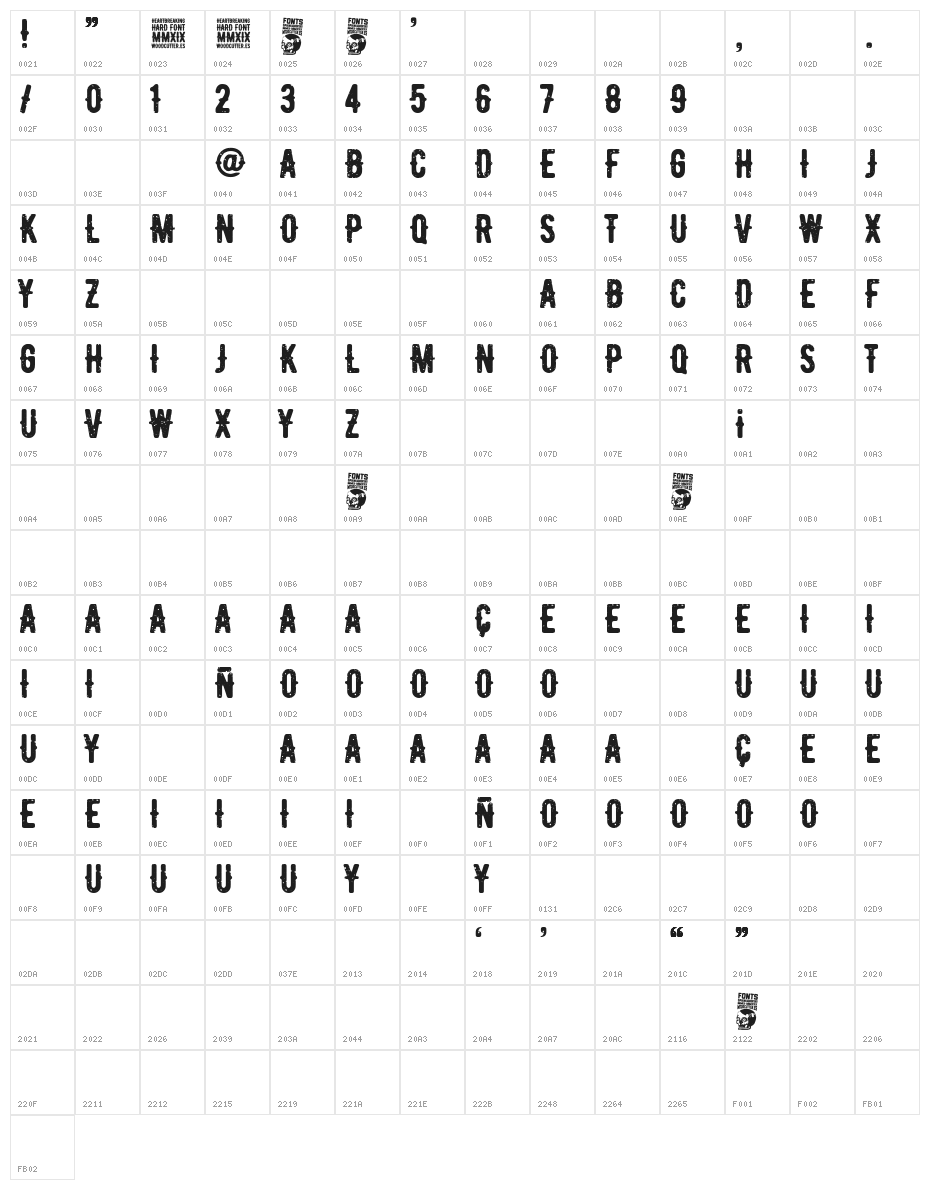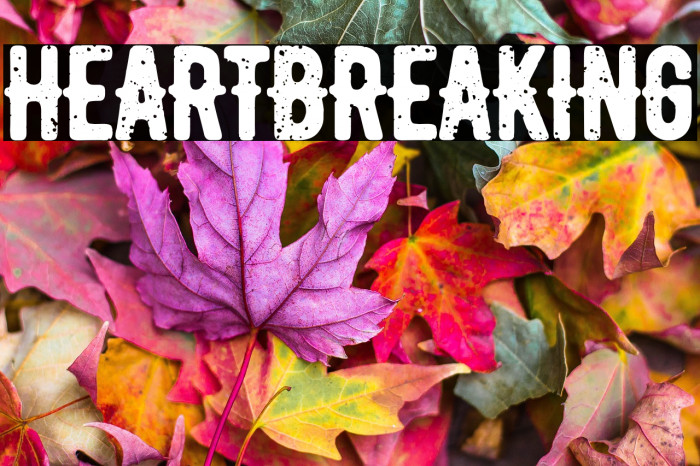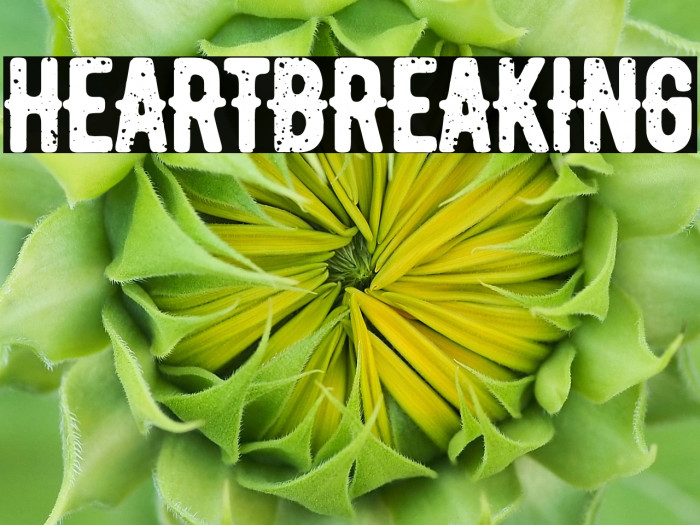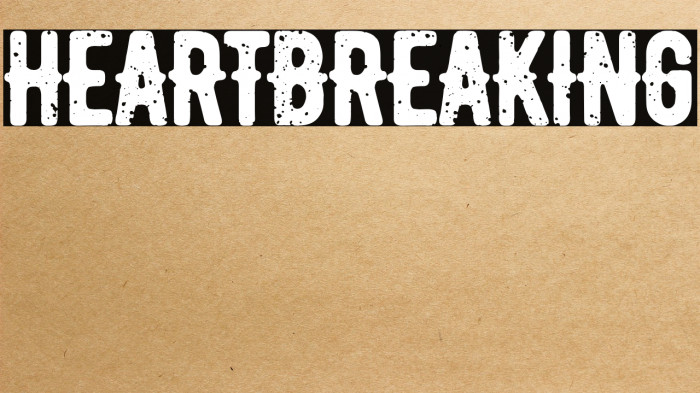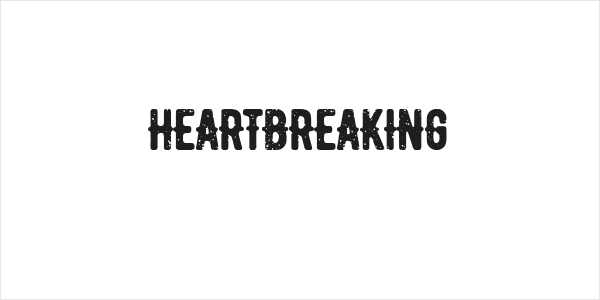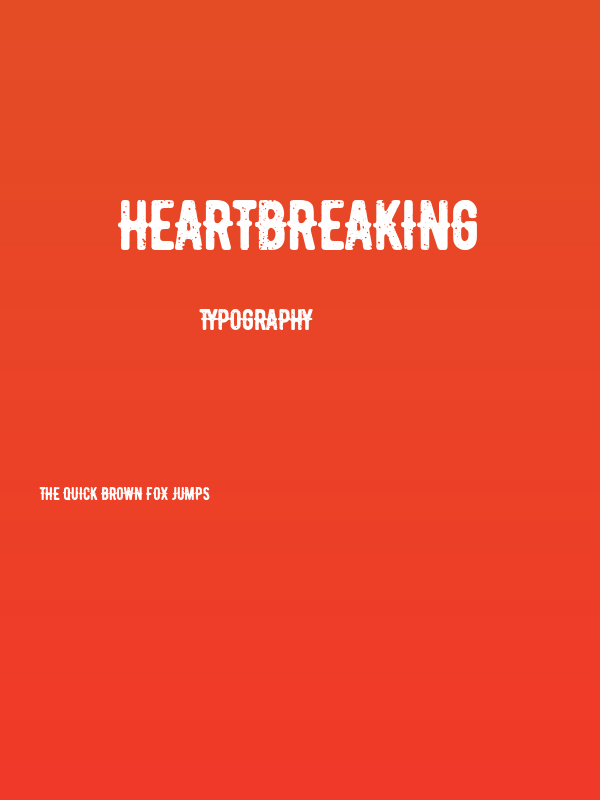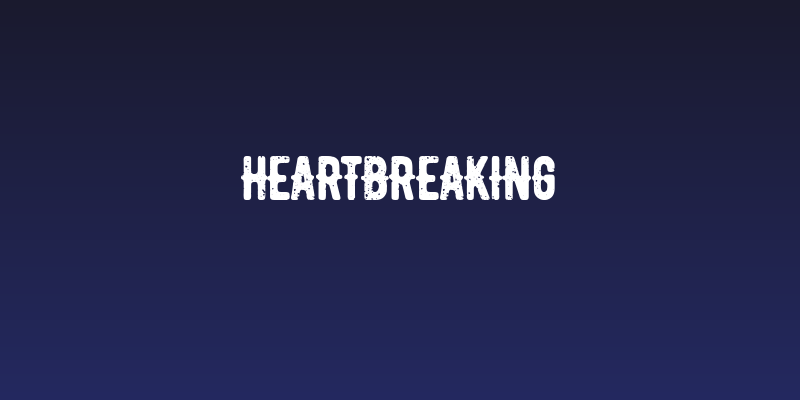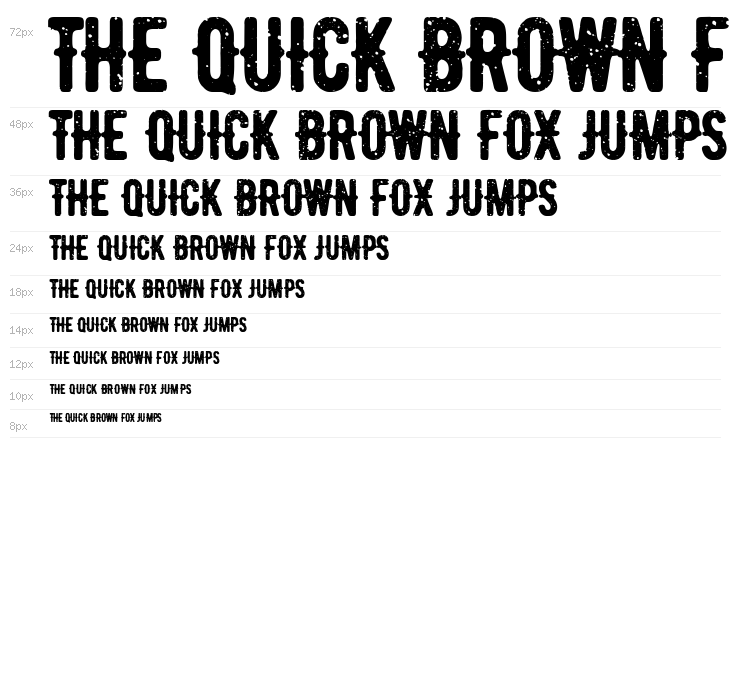
heartbreaking Font
heartbreaking Description
This font features a bold, distressed style with a rugged texture that gives it a vintage and worn appearance. The characters are thick and sturdy, with a consistent weight throughout. The texture includes speckles and rough edges, adding a unique, handcrafted feel. This style is reminiscent of old woodcut prints or vintage posters, making it ideal for projects that require a rustic or retro aesthetic. The font maintains a strong presence and is highly legible, even with its decorative elements.
| Proposed Projects | Ideal for vintage posters, rustic branding, album covers, and event flyers. |